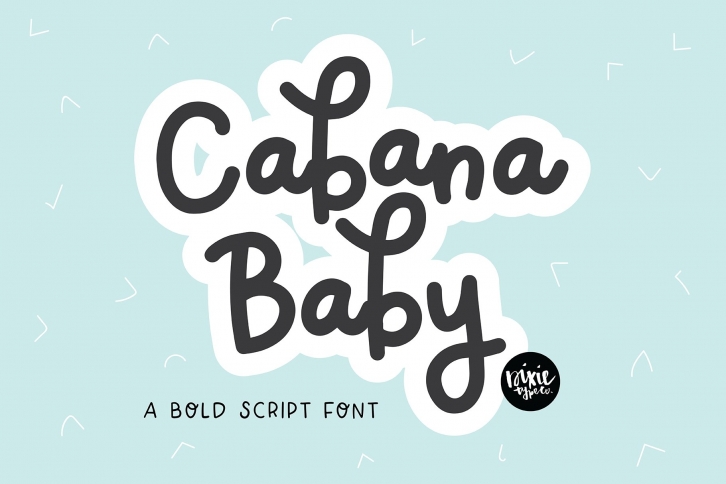
"Cabana Baby" bold hand lettered script font.
{ Typographic script font hand lettered with love by Dixie Type Co. }
A hand lettered brush font including all upper and lowercase letters, basic punctuation, ligatures, and 14 alternate characters.